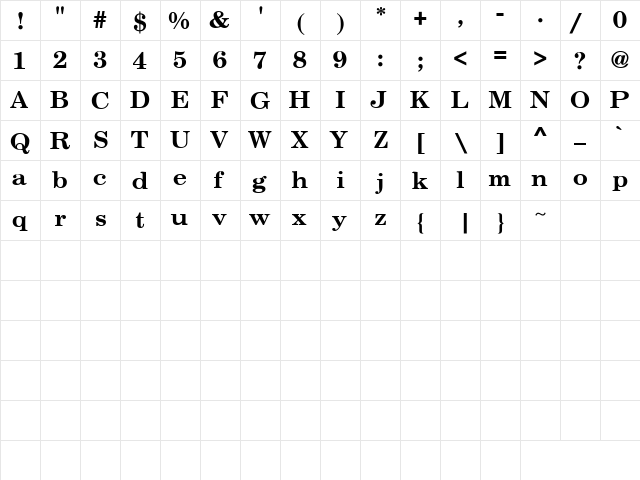
53 Regular
Design Context for 53 Typeface
53 offers clean, dependable letterforms without strong stylistic allegiance, making it a practical choice for designers who need flexibility.